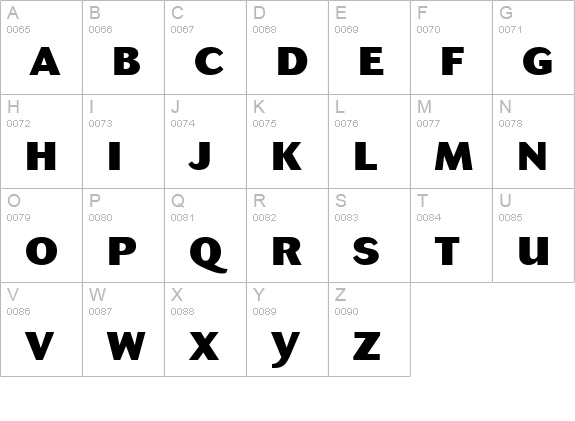
Cosmos Extra Bold Font Details
Cosmos Extra Bold is a strong, high-contrast variant in the Cosmos typeface family \xE2\x80\x94 well suited to headlines, attention-grabbing titles, and strong calls-to-action.
Cosmos Extra Bold is a striking and powerful font that commands attention with its bold and impactful presence. Its strong and modern design makes it perfect for headlines, titles, and branding projects that require a bold statement. The thick strokes and clean lines of Cosmos Extra Bold give it a sense of authority and confidence that will make your text stand out. What's even better is that Cosmos Extra Bold is available for free download at FontsMarket.com. This means you can easily access this impressive font for your design projects without any cost. Whether you're working on a poster, logo, or website design, Cosmos Extra Bold will add a touch of sophistication and style to your work. Download it today and elevate your designs with this versatile and eye-catching font.